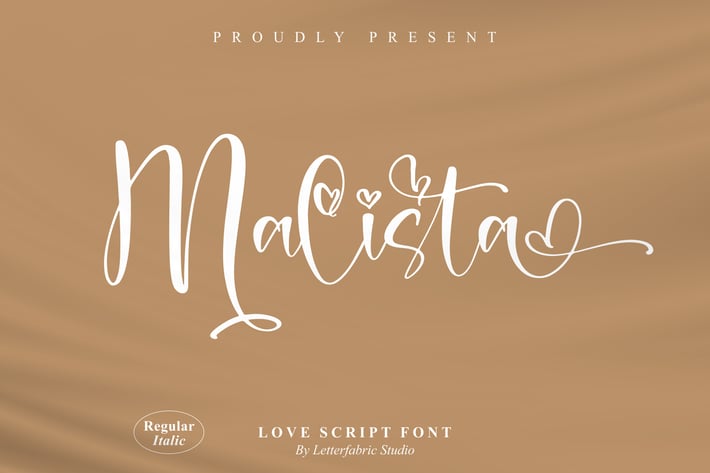
Malista Love Script Font
Malista Love is a soft and romantic script font crafted to capture warmth, affection, and handwritten charm. With flowing strokes, sweet heart details, and natural curves, this font feels personal and intimate — perfect for designs that want to feel heartfelt and elegant at the same time.
Romantic handwritten script style
Smooth, flowing strokes with love accents
Natural look with a cozy, personal feel
Regular & Italic styles included
Easy to read while staying expressive
Wedding invitations & save-the-date cards
Love quotes and romantic posters
Personal branding & feminine logos
Greeting cards and stationery
Social media posts with a soft aesthetic
Sweet, graceful, and full of feeling — Malista Love turns words into emotions.*